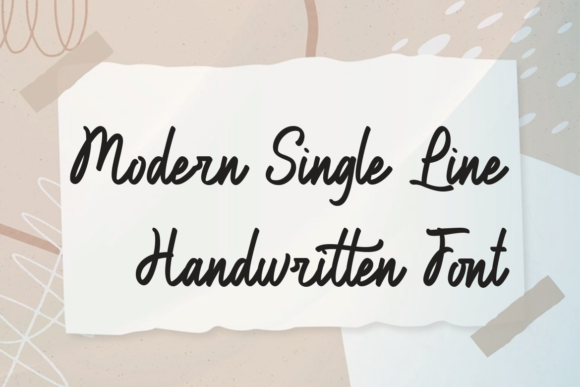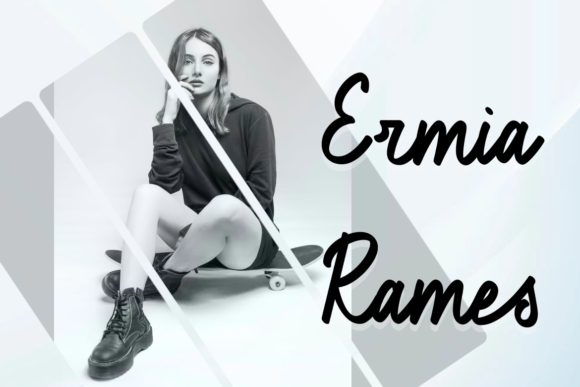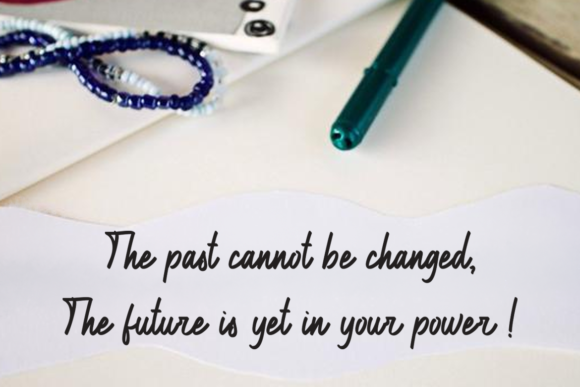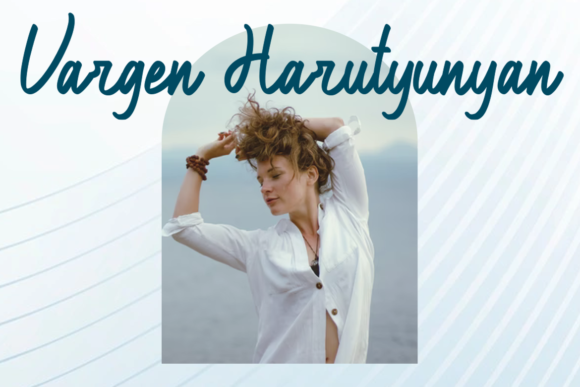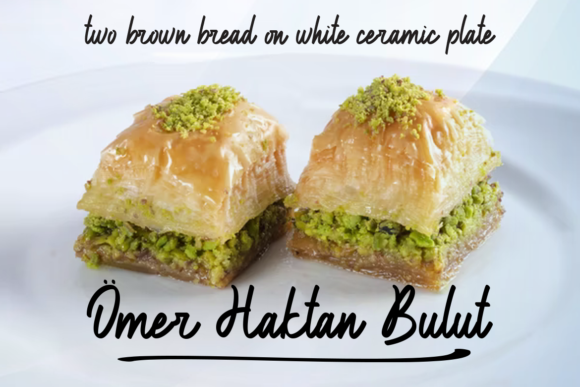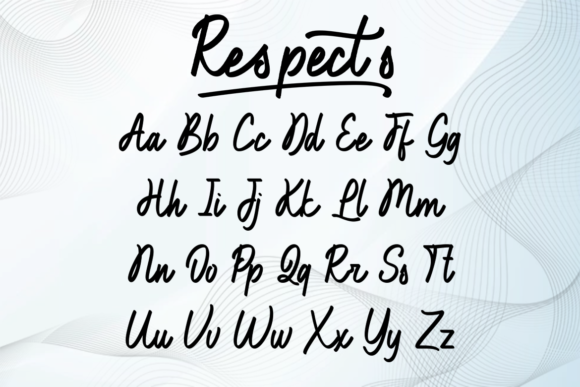
About Respects Font
Respects is a sweet and cute yet fun handwritten font. It is perfect for quotes, notes, greeting cards, packaging, standout branding, and many more. Whatever the topic, this font will make a great asset, as it will take your designs to the next level!